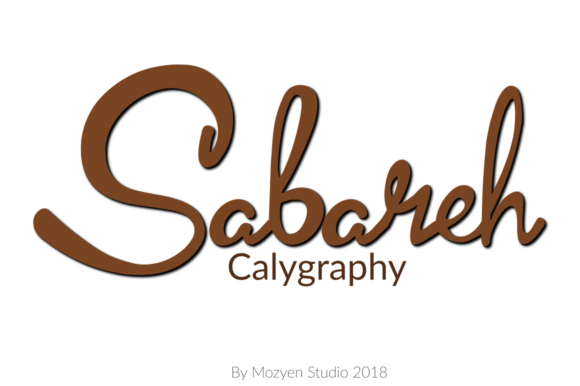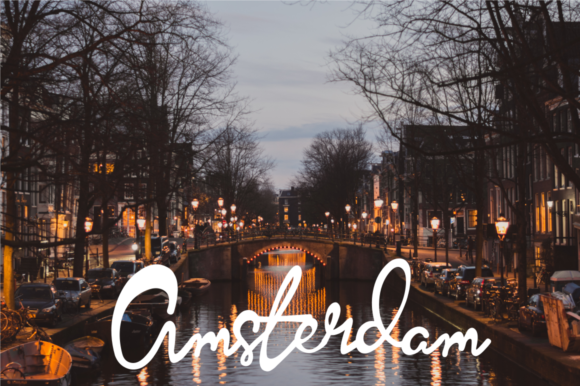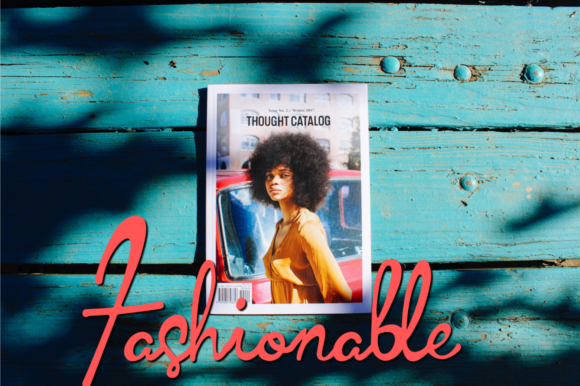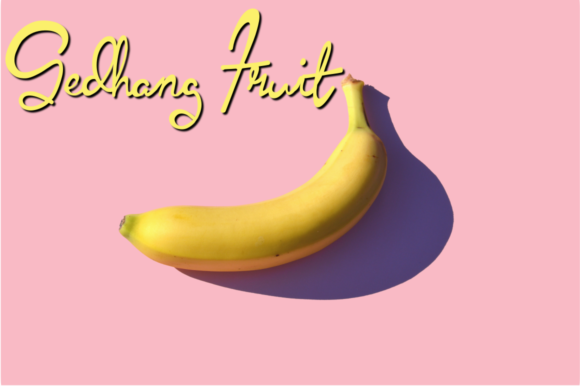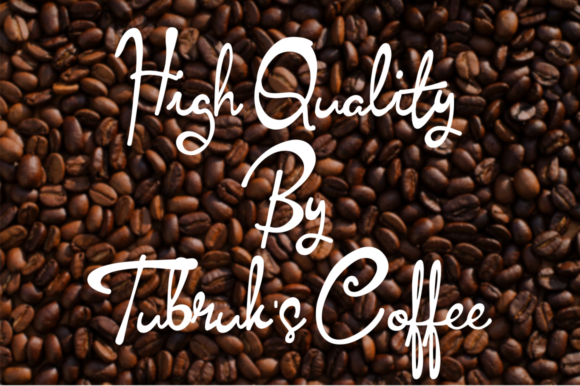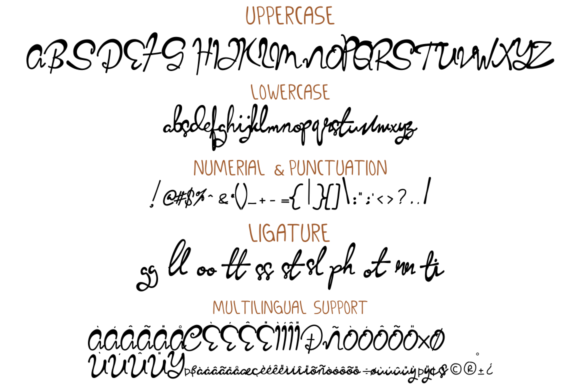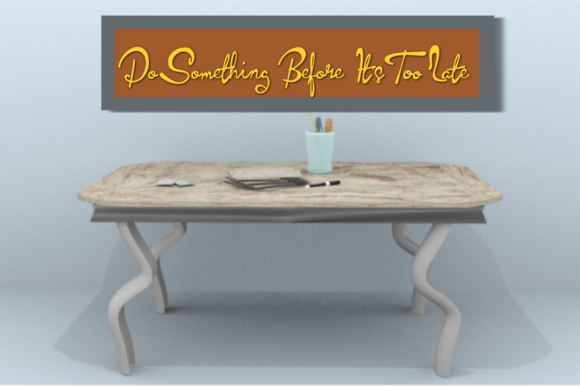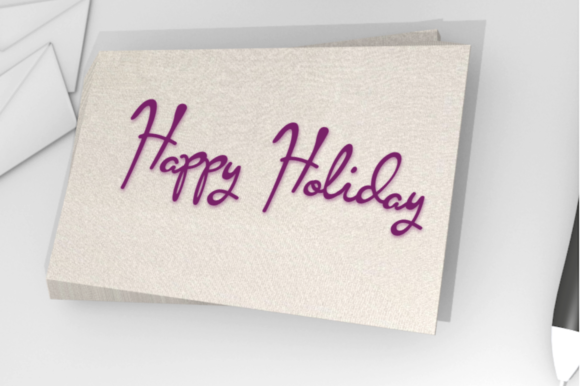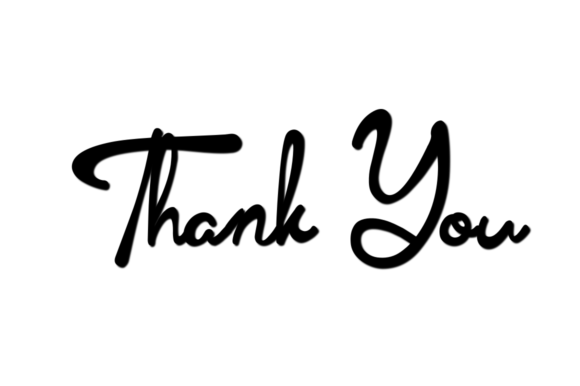
Sabareh Font
About Sabareh Font
The Sabareh is a striking script font. It was inspired by jelly and is suitable for branding products, wedding invitations, feminine designs, traveling, and much more!